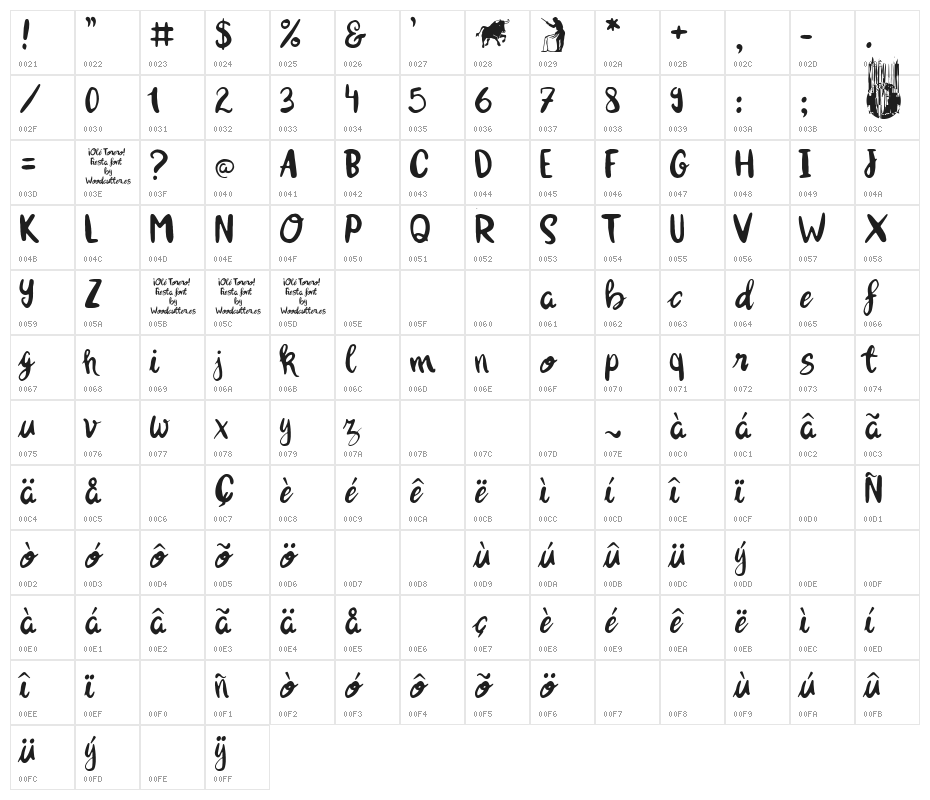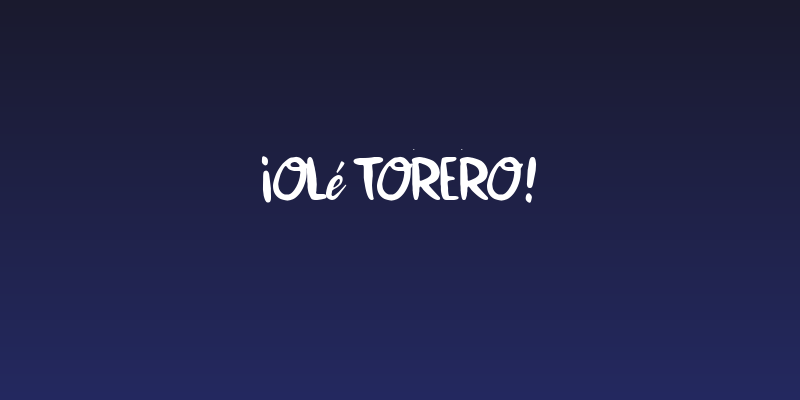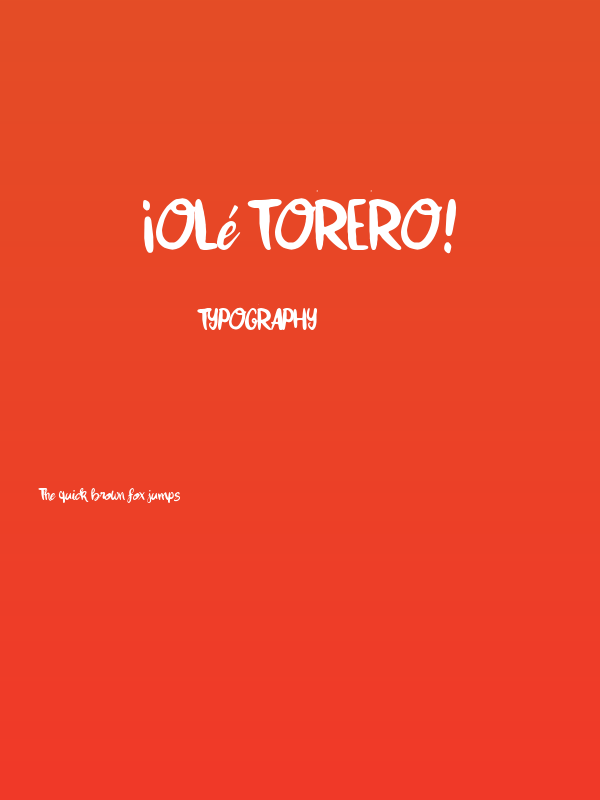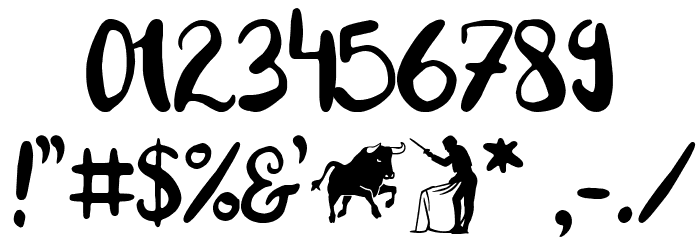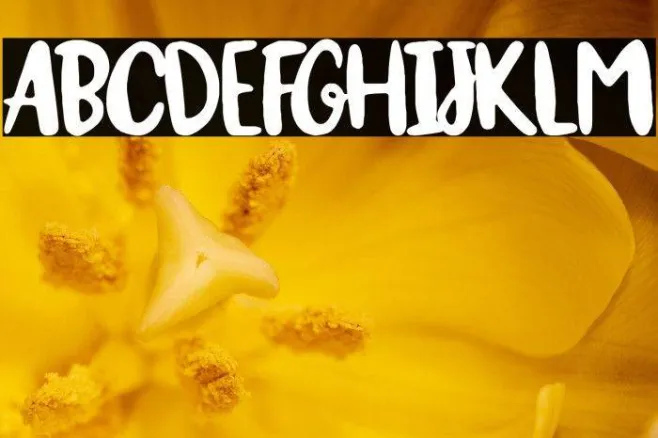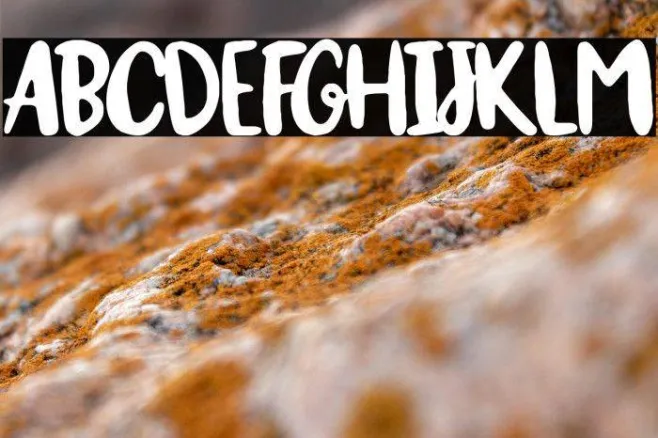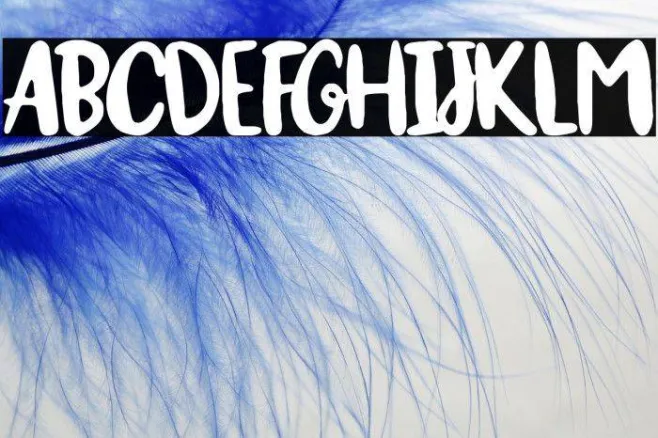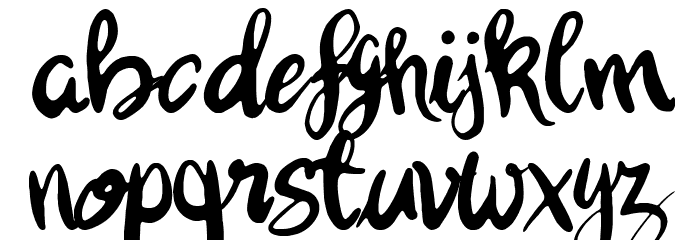
¡Olé torero! Font
¡Olé torero! Description
This font features a bold and expressive handwritten style, characterized by its fluid and dynamic strokes. The uppercase letters are robust and slightly irregular, giving a sense of movement and energy. The lowercase letters maintain a consistent flow, with some characters having unique flourishes that add to the overall artistic feel. Numbers are bold and clear, matching the style of the letters. Special characters are creatively designed, incorporating thematic elements that enhance the font's visual appeal. This font is ideal for projects that require a touch of creativity and personality.